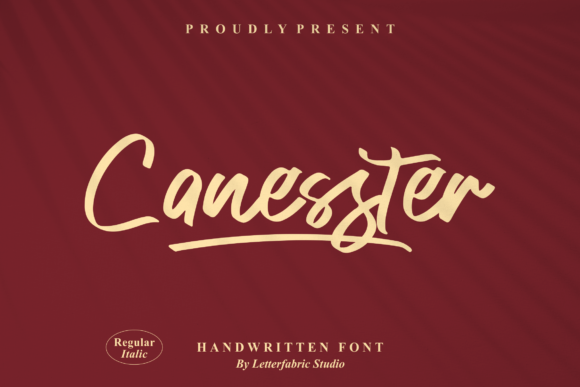
Meet Canesster, a comic masterpiece that will spark your imagination and unleash your inner creative genius. This exquisite script font dances across your designs, evoking the nostalgia of childhood comic books and infusing your creations with playful charm.
With every stroke of the pen, Canesster brings your words to life, capturing the essence of captivating comic lettering. Its delicate and fashionable curves add a touch of sophistication, transforming your words into works of art that leap off the page.
Whether you're crafting logos that demand attention, designing t-shirts that ignite laughter, or creating any other creative endeavor, Canesster is the perfect companion. Its versatility knows no bounds, allowing you to unleash your artistic flair and showcase your unique style.
Step into the realm of comic brilliance with Canesster, where your words will become extraordinary, and your imagination will soar. Embrace the power of storytelling and let this font guide you on an adventure filled with laughter and boundless creativity.